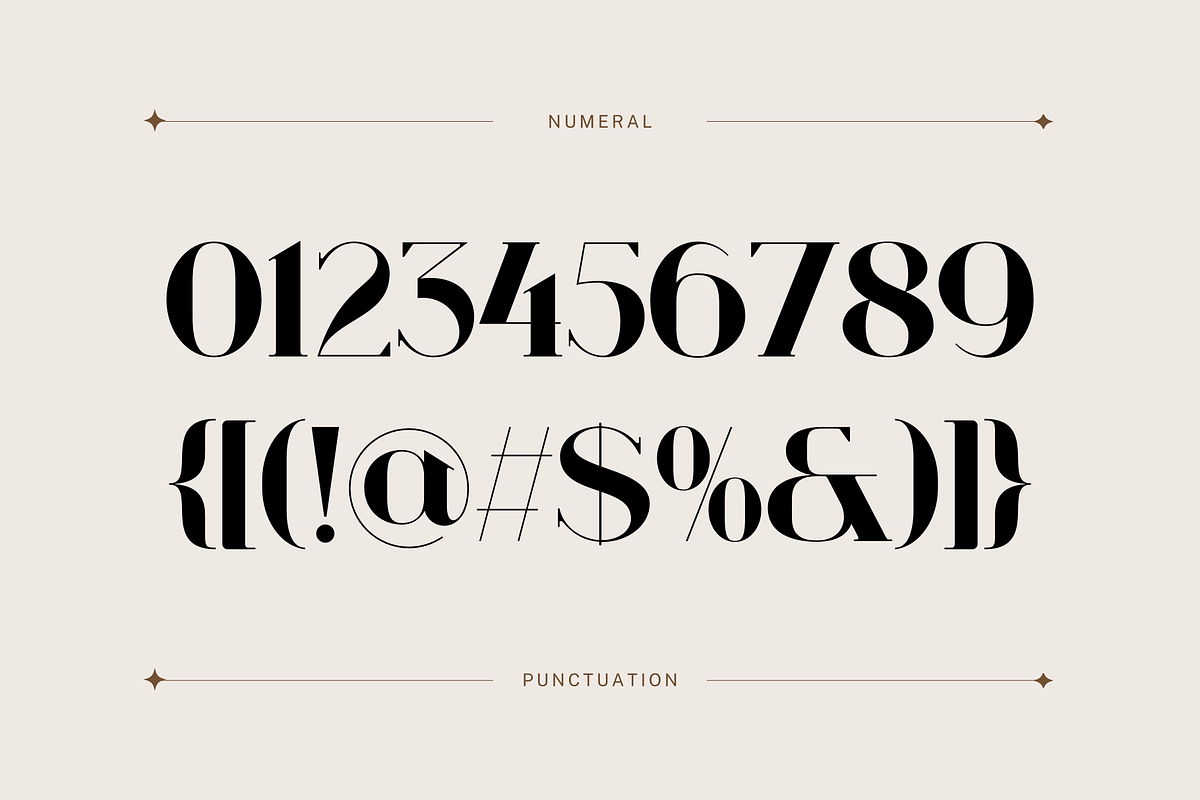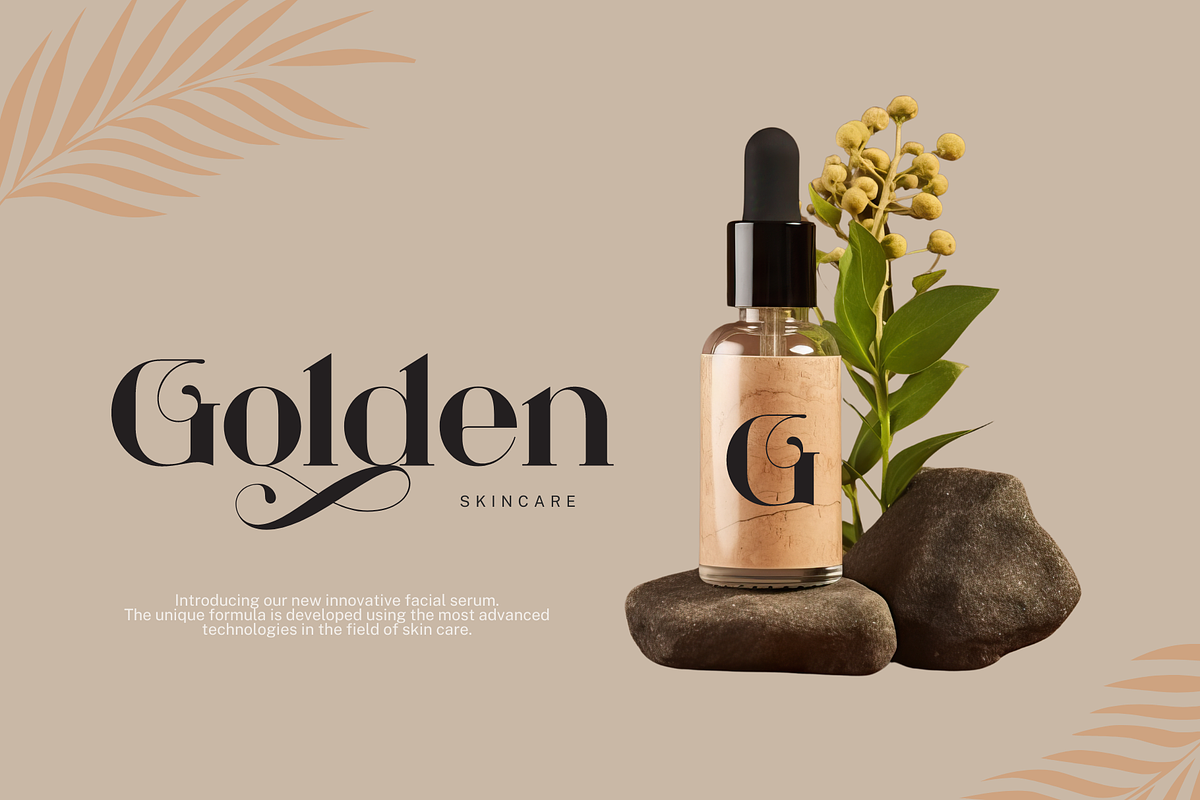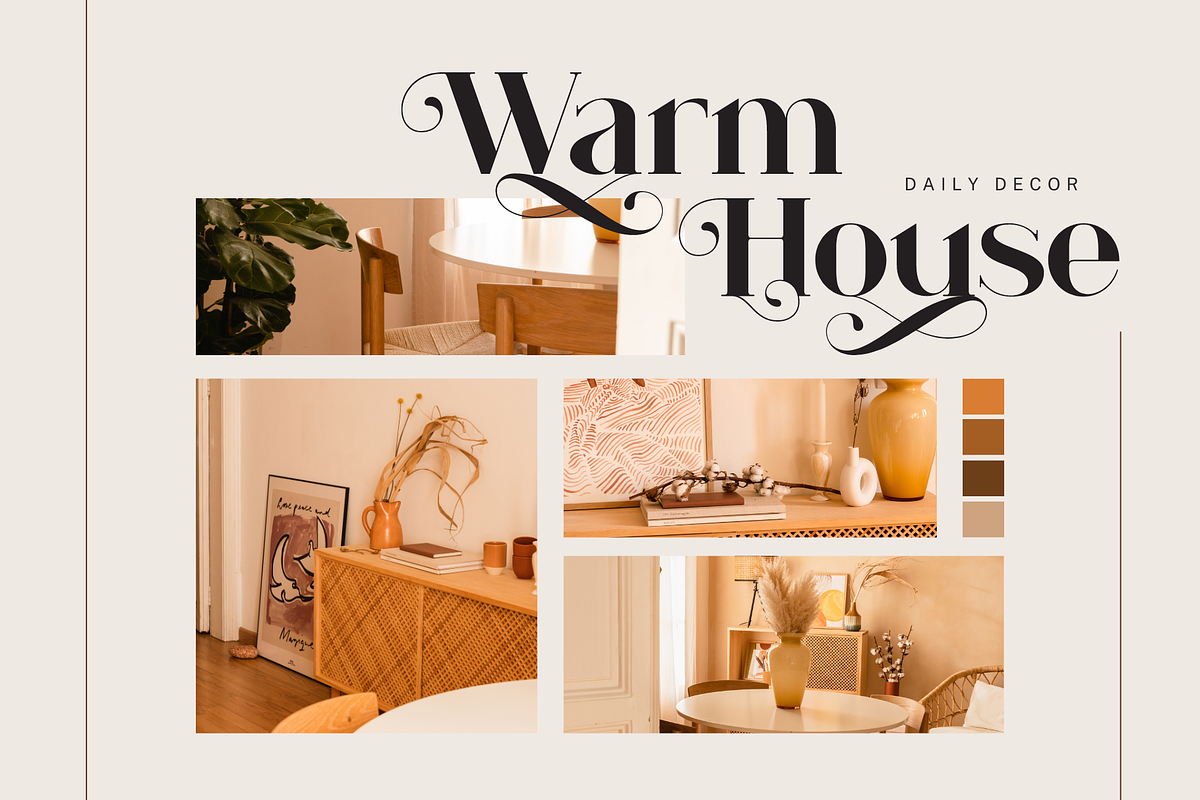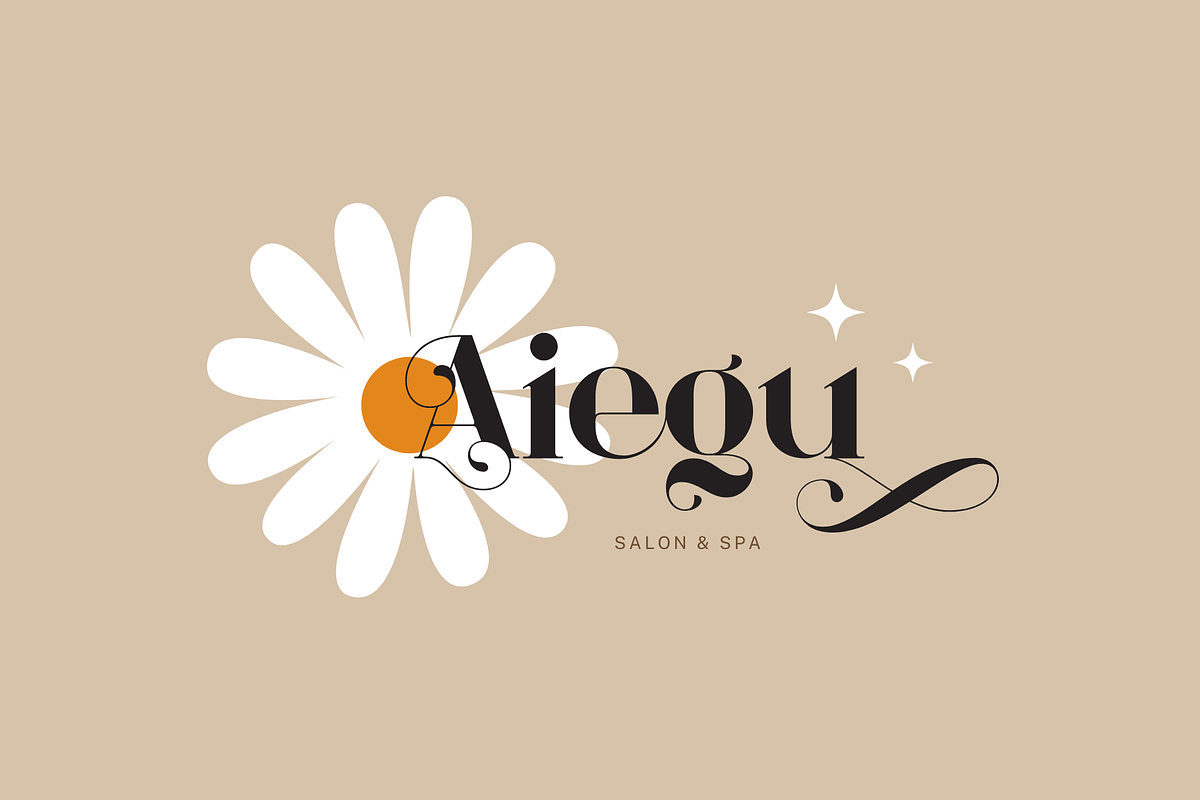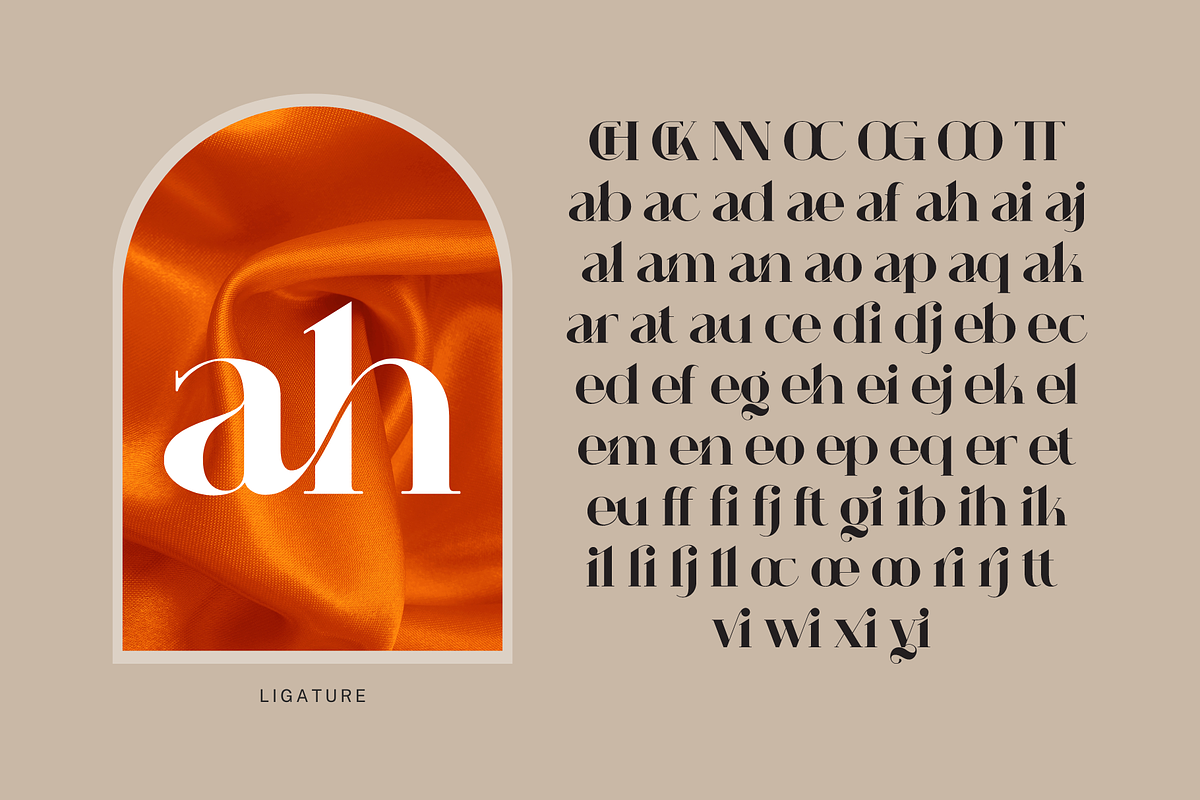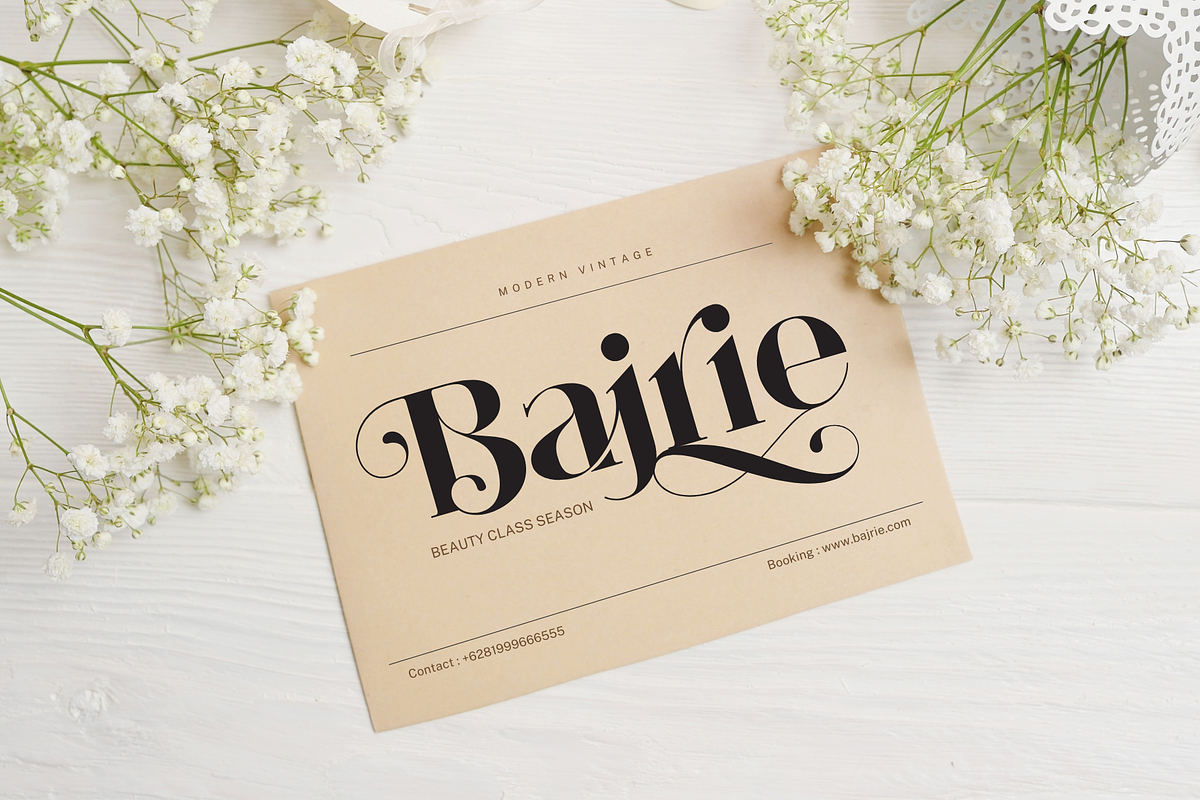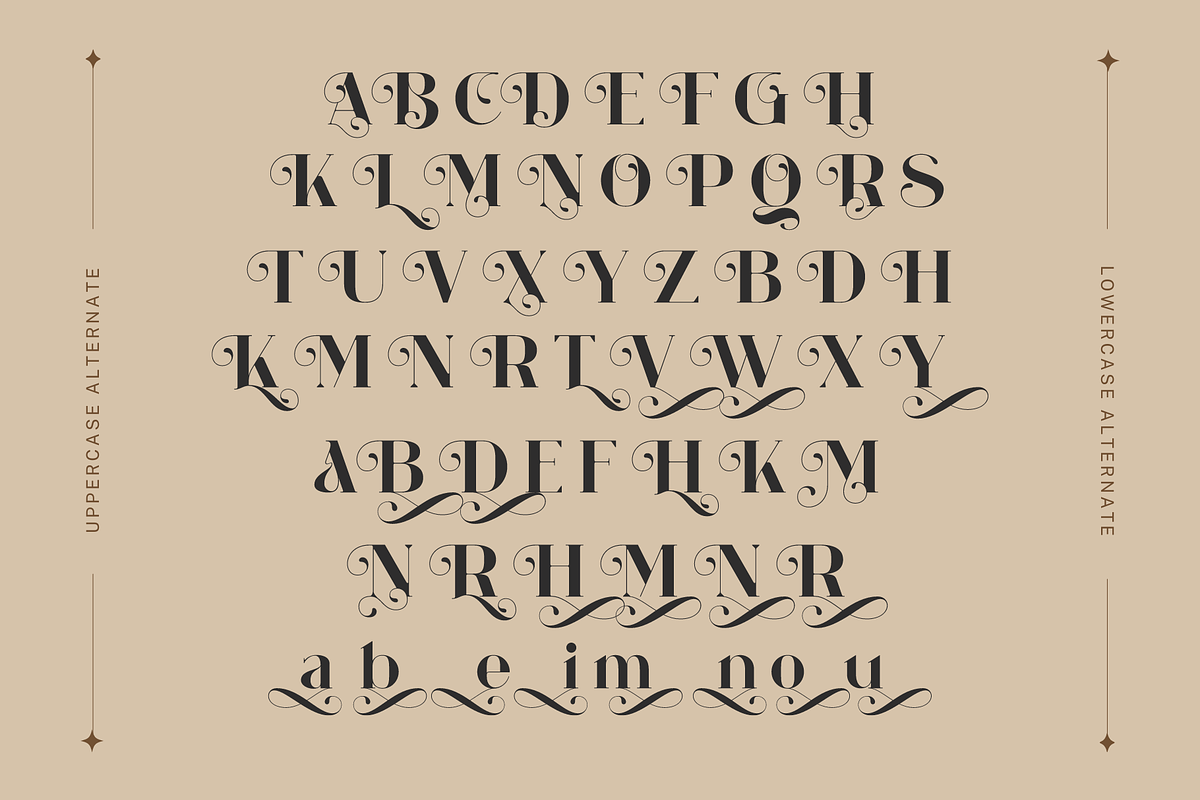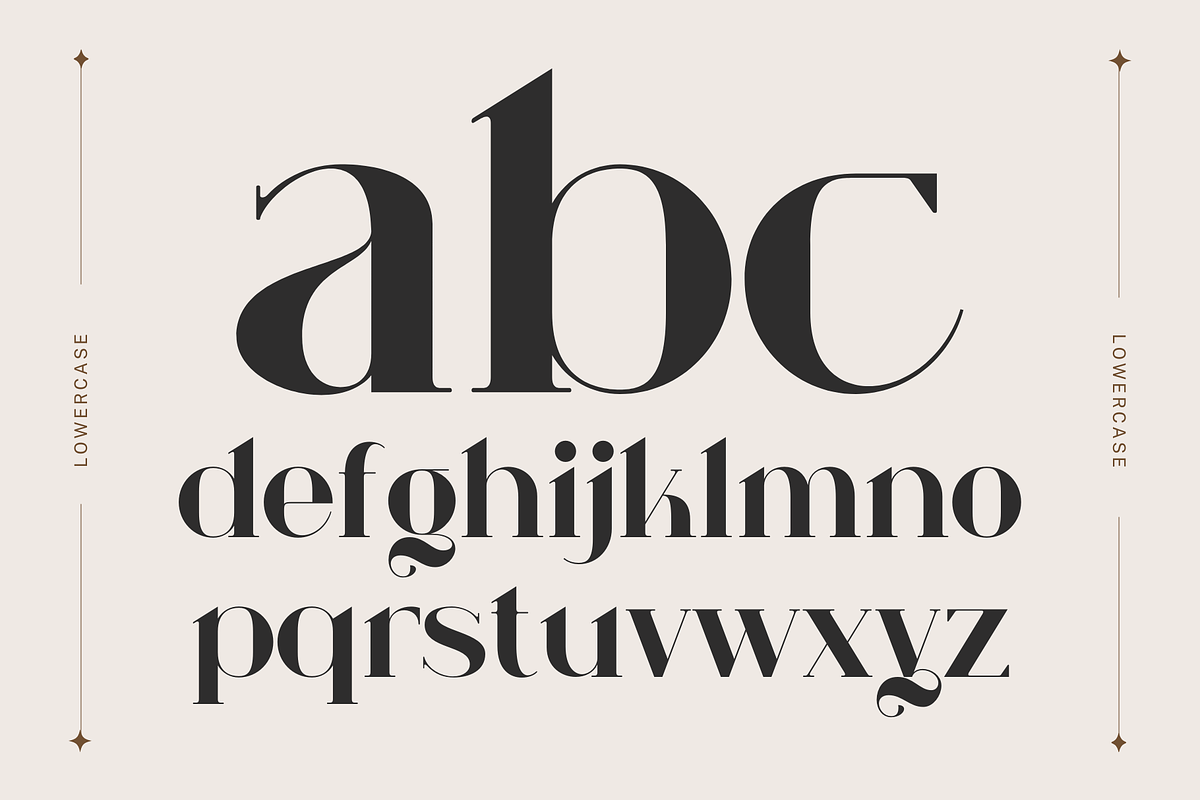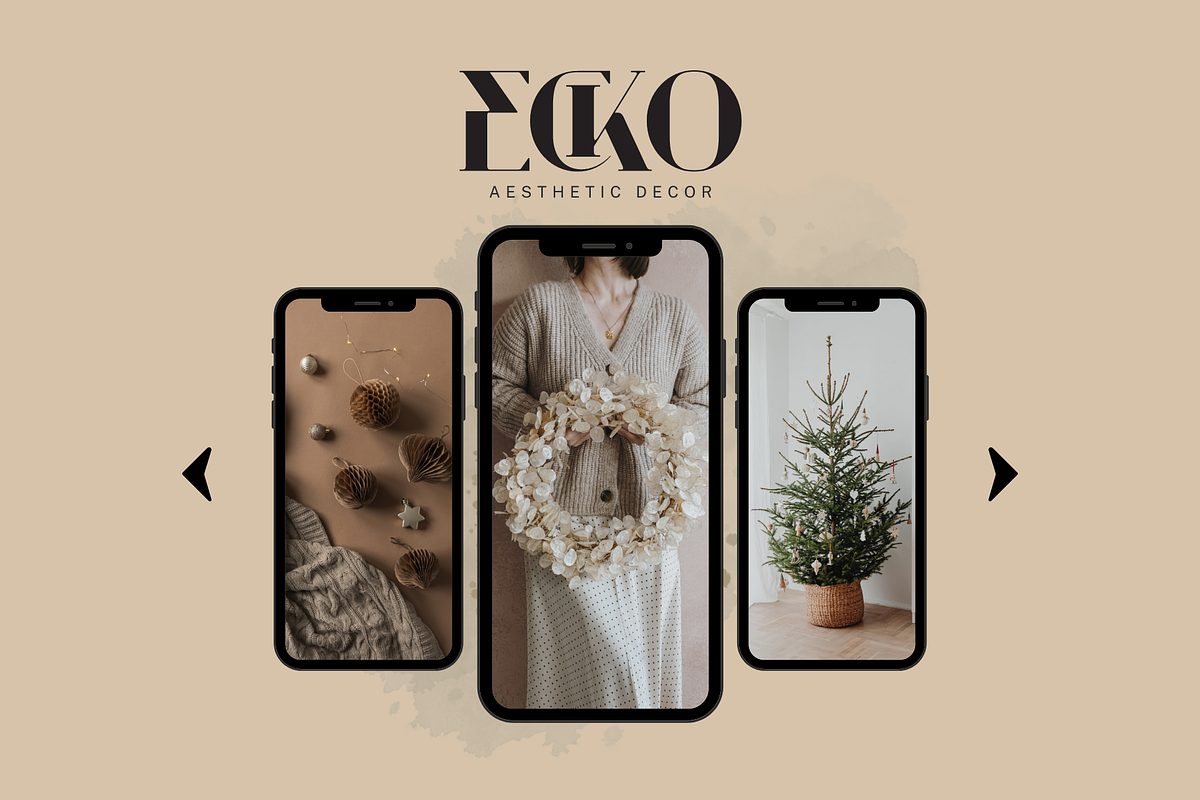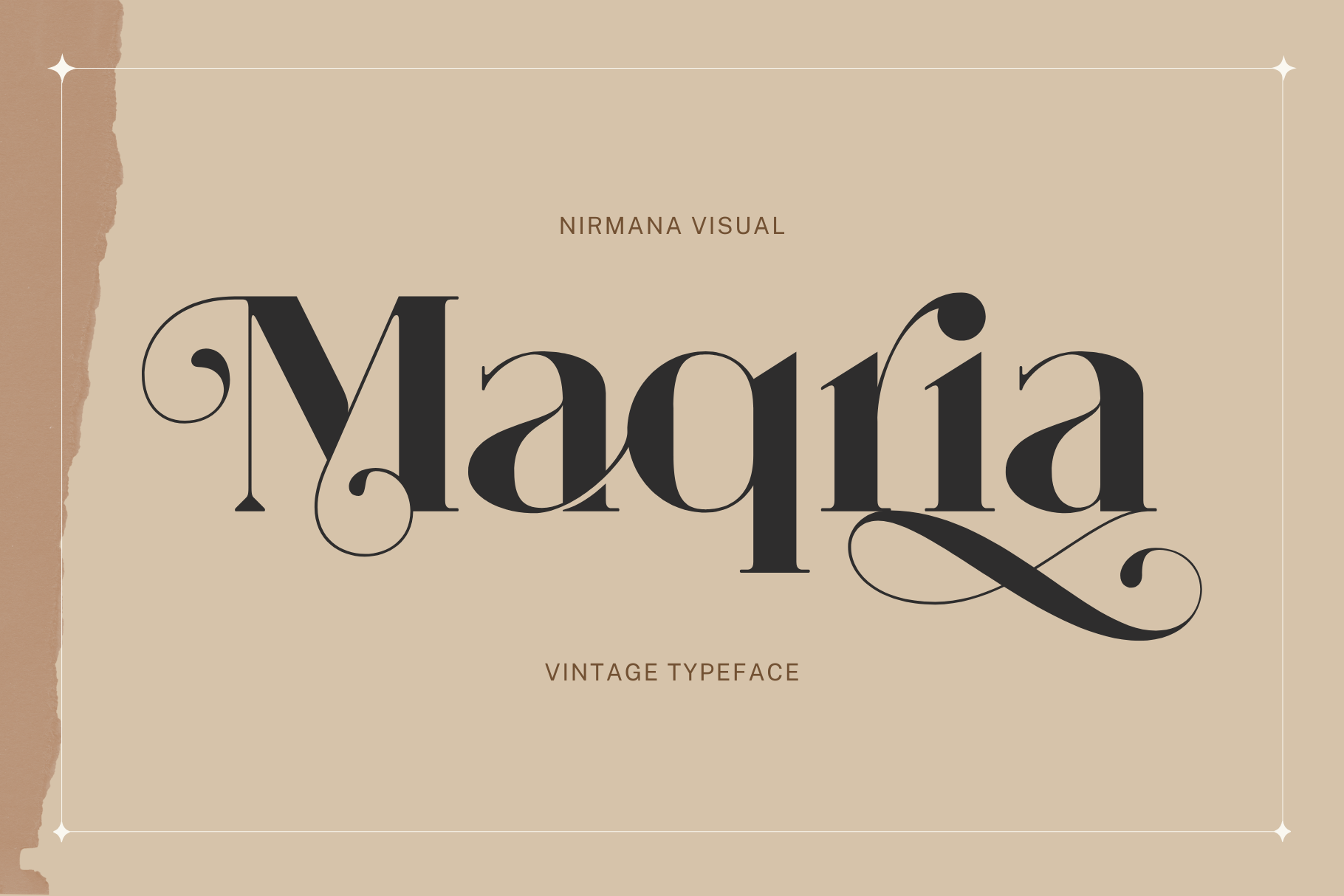
Maqria Vintage - Branding Logo Font
Maqria Vintage Font offers beautiful typographic harmony for a diversity of design projects, including logos & branding, social media posts, advertisements & product designs.